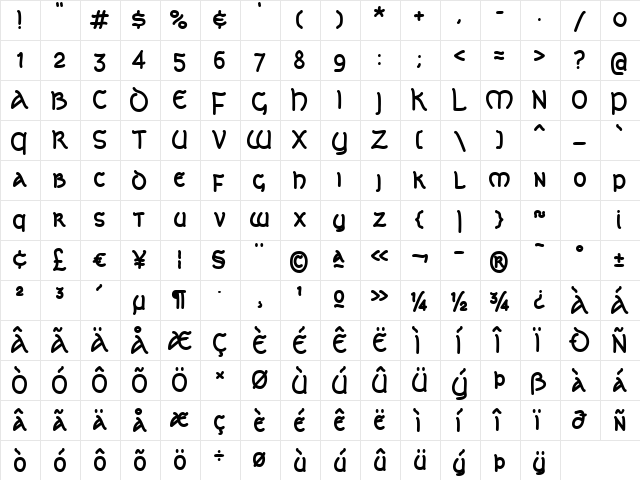
Celtic Lion AOE Bold
Design Context for Celtic Lion AOE Typeface
Celtic Lion AOE takes a measured approach to typography — its balanced proportions and neutral character make it a reliable workhorse for both digital and print work. The heavy weight commands attention and anchors typographic hierarchies.
Pro Tip: Use Celtic Lion AOE in both headline and body roles to test its range before committing to a single application.